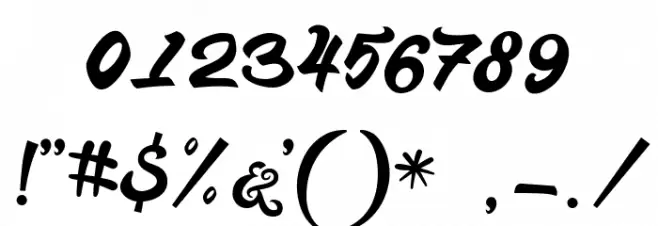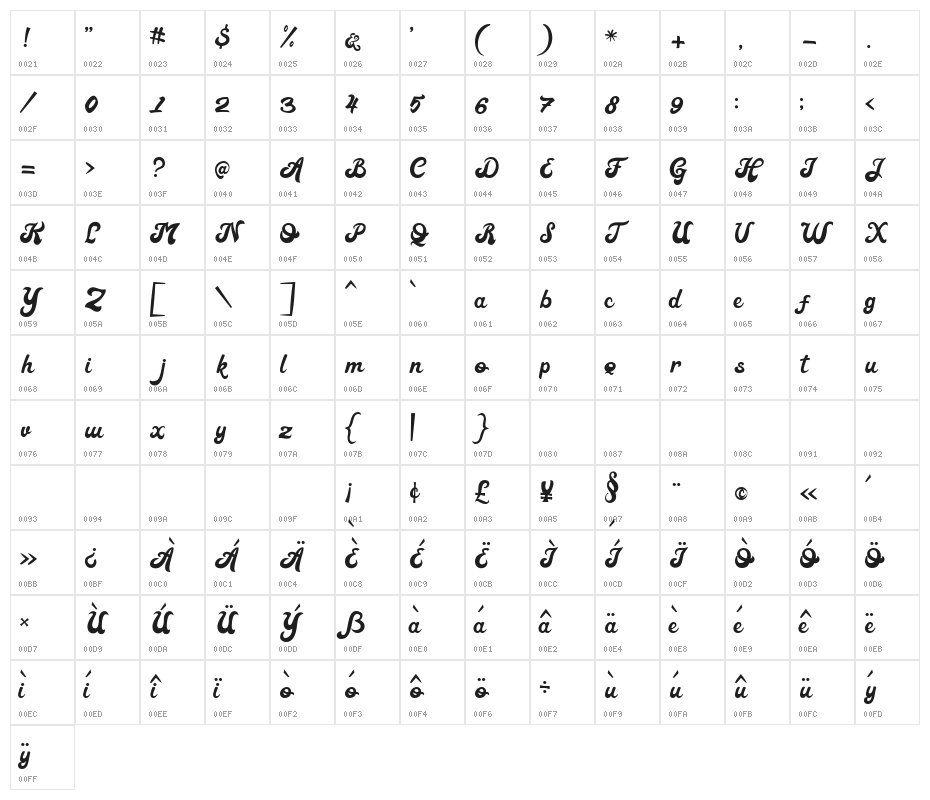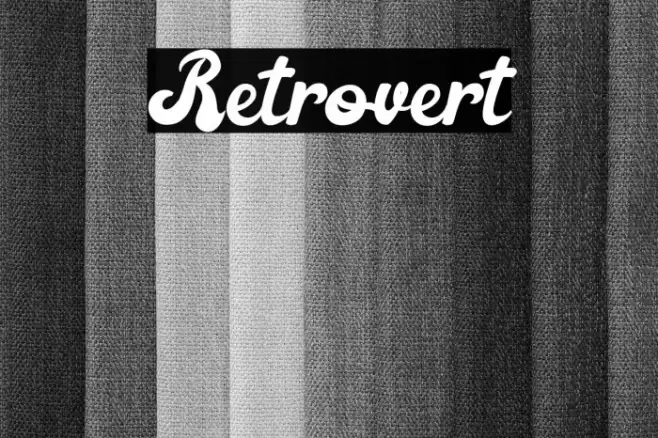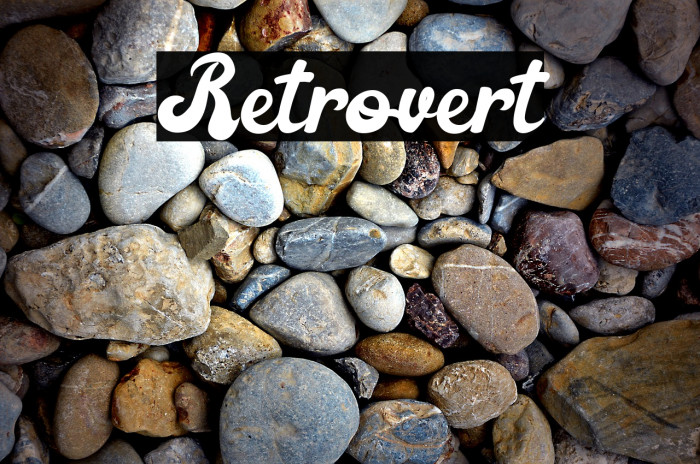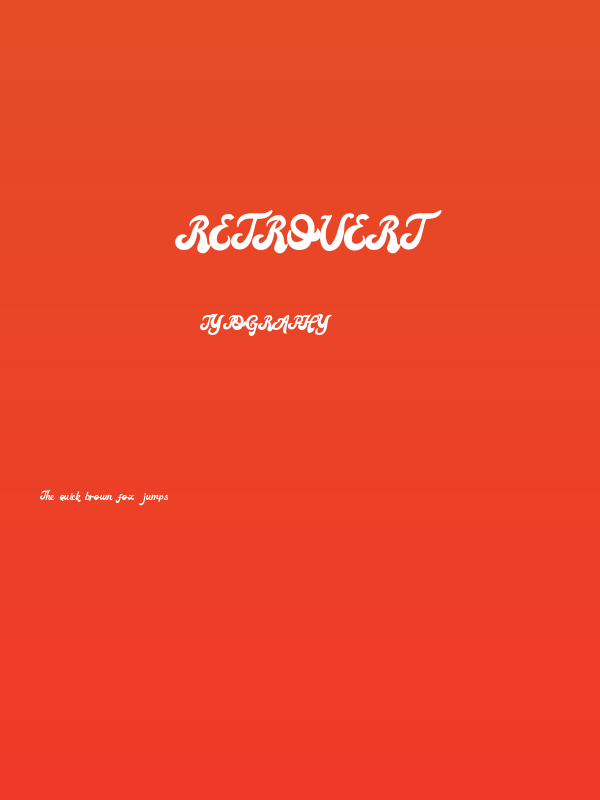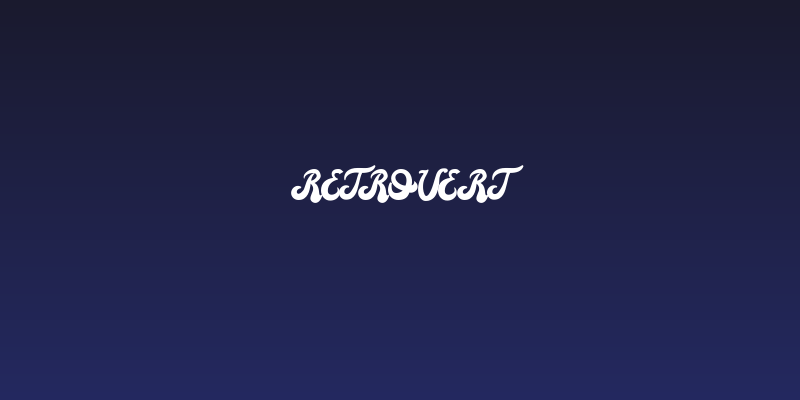
Retrovert Font
Retrovert Description
This font features a bold and flowing script style, reminiscent of retro and vintage aesthetics. The characters are connected with smooth, elegant curves, giving it a sense of movement and fluidity. The uppercase letters are particularly ornate, with exaggerated loops and swirls that add a decorative flair. The lowercase letters maintain a consistent style, with rounded edges and a slightly condensed form. Numbers and special characters are designed to match the overall aesthetic, ensuring a cohesive look across all text. This font is ideal for projects that require a touch of nostalgia and elegance, such as branding, invitations, and signage.